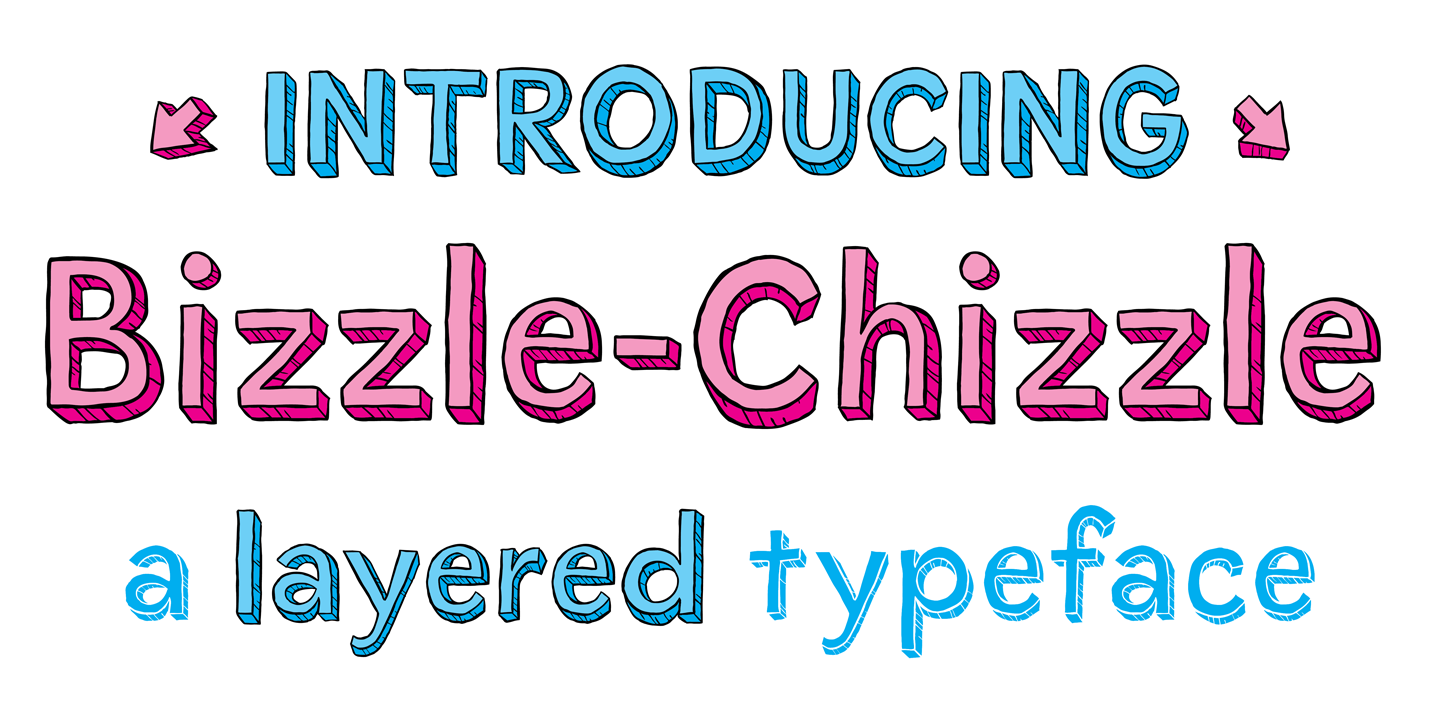
The Bizzle-Chizzle Font is excellent for hip-hop record labels, street art galleries, urban fashion brands, rap battle promotions, graffiti-inspired designs, underground music venues, street culture magazines, and authentic urban lifestyle campaigns. This dynamic typeface works wonderfully in applications where street credibility and hip-hop culture need to be emphasized, making it perfect for brands that want to communicate authentic urban energy and underground music scene authenticity through bold, street-smart typography.
What makes Bizzle-Chizzle Font exciting is its genuine street swagger and hip-hop authenticity that captures the essence of urban culture and underground music energy. The font's bold letterforms and street-inspired character design create an atmosphere of raw creativity and cultural authenticity, making it ideal for brands that want to connect with urban audiences and celebrate the artistic power of street culture. Its rebellious presence ensures that every application feels fresh from the streets with genuine hip-hop credibility.
The Bizzle-Chizzle Font family typically includes regular, bold, and extra-bold weights, often featuring graffiti-inspired elements, street art textures, and urban culture symbols that enhance its authentic appeal. Many versions include spray paint effects, street tag variations, and specialized characters that provide designers with comprehensive tools for creating authentic urban design projects with genuine street culture energy and hip-hop sophistication.
For designers working on projects that require street authenticity and hip-hop credibility, Bizzle-Chizzle Font Free Download provides exceptional urban appeal. Its ability to instantly communicate street culture and underground energy makes it an invaluable choice for music labels, urban brands, and any project requiring typography that embodies the creative power of street art, the authenticity of hip-hop culture, and the dynamic energy of urban creative expression and underground music scenes.